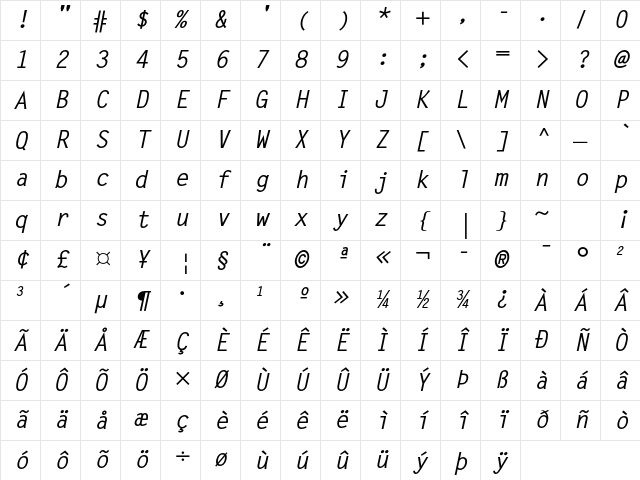
Complete Letter Gothic Std Bold Slanted glyph index. Displaying only characters natively supported by Letter Gothic Std Bold Slanted font.
Letter Gothic Std takes a clean, functional approach - its unadorned letterforms prioritise legibility and work reliably across screen and print environments. The slanted form adds forward momentum and visual energy. Its bold stroke weight gives it real presence on the page.
Font Pairing: Use Letter Gothic Std for headlines alongside a lighter-weight sans or serif for body copy to establish clear visual hierarchy.
Pro Tip: Use Letter Gothic Std for UI labels, navigation, and short-form body copy where clean legibility is the priority.